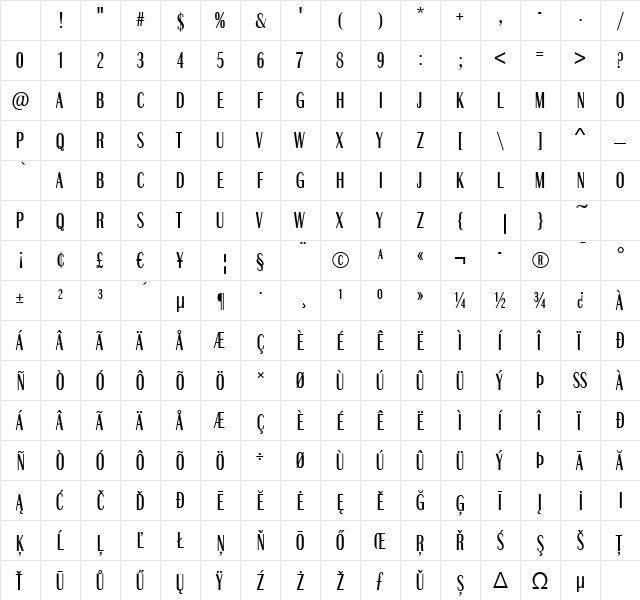
Complete Bristol-Compressed-Medium Regular glyph index. Displaying only characters natively supported by Bristol-Compressed-Medium Regular font.
Bristol-Compressed-Medium is a composed and adaptable typeface that performs quietly and consistently across a wide range of design contexts.